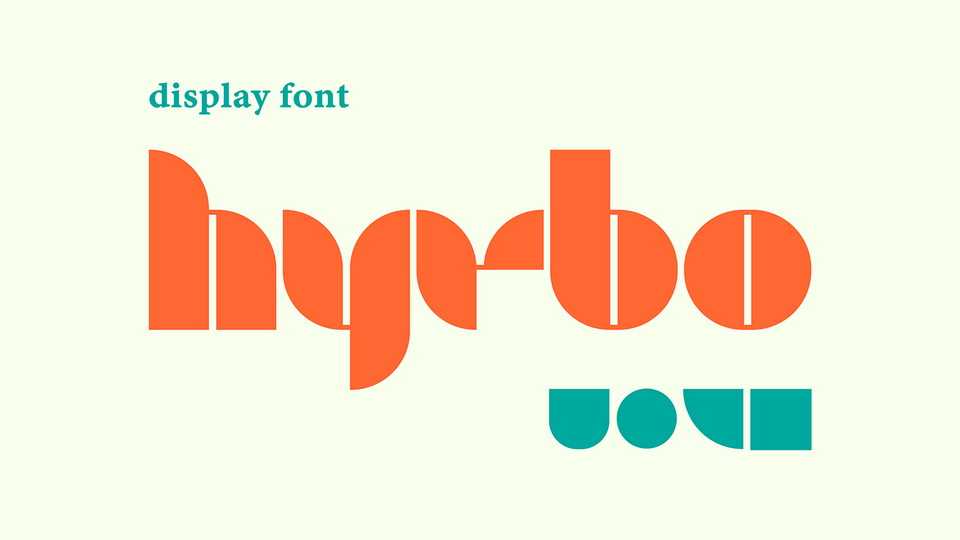
Download Hyrbo font, a bold modular display typeface. It’s a geometric and modern choice for headlines with impact. Hyrbo also works well as a decorative cut out in decor and collage projects.
Designer: Dom Rowland